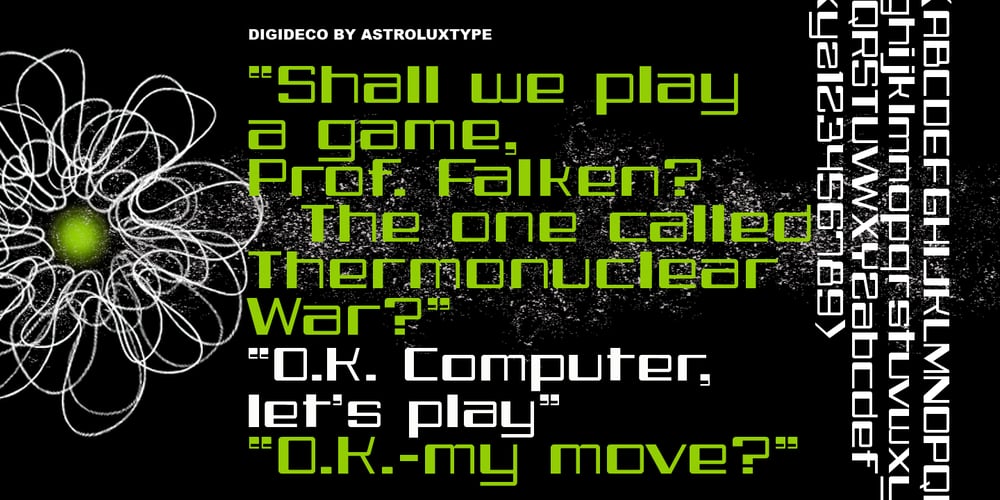
Digideco Font Family was designed by Glenn Parsons and published by astroluxtype. Digideco contains 1 styles and family package options. Retro-futuristic robot terminal type. The 1930s Moderne Streamline decade meets the digital domain in this weird font. Use it in an ad for Ford Tri-Motor Airplane or a story about an out of control 1980s computer monster. Which? Help it find its place- as it is lost in time. Digideco is a minimal font set that includes upper and lowercase letterforms which can be used at various sizes but, we consider it a headline/display font, best applied larger than 36 points in size. Shall we play a game?